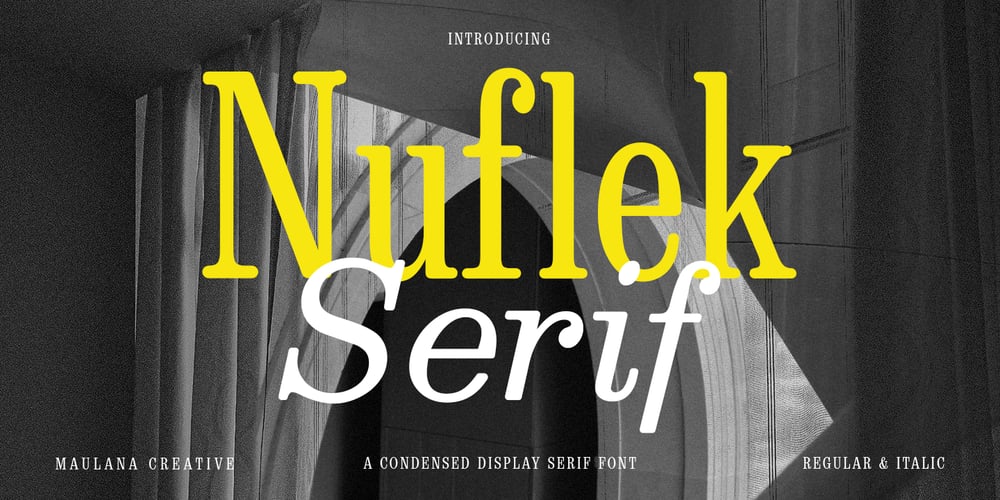
MC Nuflek Font Family was designed by Gilang Maulana and published by Maulana Creative. MC Nuflek contains 2 styles and family package options. Nuflek Display Serif Font. With bold contrast stroke, fun character with a bit of ligatures and alternates. To give you an extra creative work. Nuflek Display Serif Font support multilingual more than 100+ language. This font is good for logo design, Social media, Movie Titles, Books Titles, a short text even a long text letter and good for your secondary text font with sans or serif. Make a stunning work with Nuflek Display Serif Font.Cheers,Maulana Creative